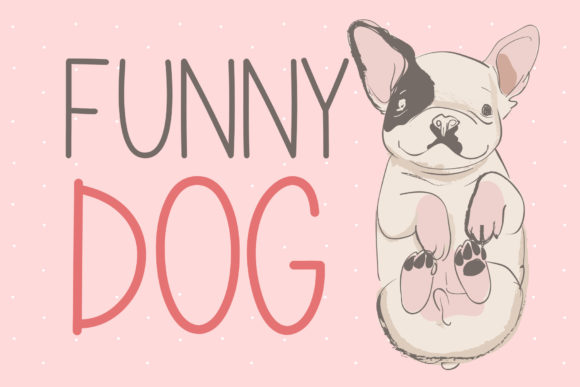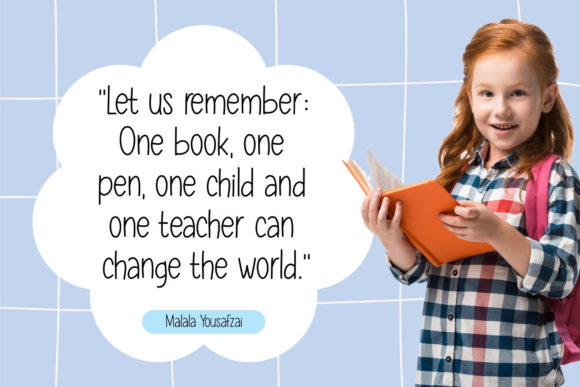
Introducing Buddy Kids Font: The Fun and Friendly Choice for Designers and Crafters
Are you looking for a font that is both fun and easy to read? Look no further than Buddy Kids Font! This lettered sans serif font is perfect for a variety of projects, from blog posts and logos to branding, ads, invitations, greeting cards, planners, photo albums, decorations, and more. In this article, we’ll take a closer look at Buddy Kids Font and explore its many uses and benefits.
What is Buddy Kids Font?
Buddy Kids Font is a carefully crafted lettered sans serif font that is designed to be both fun and functional. Its clean and simple lines make it easy to read, while its playful and friendly feel make it perfect for projects that require a personal touch. Whether you’re a designer, crafter, or DIY enthusiast, Buddy Kids Font is a great addition to your font collection.
Uses for Buddy Kids Font
One of the best things about Buddy Kids Font is its versatility. Here are just a few ideas for projects where you can use this font:
- Blog Posts: Add a playful touch to your blog posts with Buddy Kids Font. Use it for headings, subheadings, or even the entire text.
- Logos and Branding: Create a fun and memorable logo for your business or brand with Buddy Kids Font.
- Ads: Use Buddy Kids Font to create eye-catching ads that grab attention and leave a lasting impression.
- Invitations and Greeting Cards: Add a personal touch to your invitations and greeting cards with Buddy Kids Font.
- Planners and Photo Albums: Use Buddy Kids Font to create fun and functional planners and photo albums.
- Decorations: Add a playful touch to your decorations, such as party banners, garlands, and more.
Benefits of Using Buddy Kids Font
So why choose Buddy Kids Font for your projects? Here are just a few benefits:
- Easy to Read: Buddy Kids Font is designed to be easy to read, even for young children or people with visual impairments.
- Fun and Friendly: Buddy Kids Font has a playful and friendly feel that is perfect for projects that require a personal touch.
- Versatile: Buddy Kids Font can be used for a wide range of projects, from digital designs to print materials.
- High-Quality: Buddy Kids Font is a high-quality font that is designed to look great in any project.
Tips for Using Buddy Kids Font
Here are a few tips for getting the most out of Buddy Kids Font:
- Experiment with Different Sizes: Buddy Kids Font looks great in a variety of sizes, from small headings to large display text.
- Pair with Other Fonts: Try pairing Buddy Kids Font with other fonts to create a unique and interesting look.
- Use for Headings and Subheadings: Use Buddy Kids Font for headings and subheadings to add a playful touch to your text.
In conclusion, Buddy Kids Font is a fun and friendly font that is perfect for designers, crafters, and DIY enthusiasts. Its easy-to-read design, playful feel, and versatility make it a great addition to any font collection. Whether you’re working on a blog post, logo, ad, invitation, or decoration, Buddy Kids Font is a great choice. So why not give it a try and see the results for yourself?